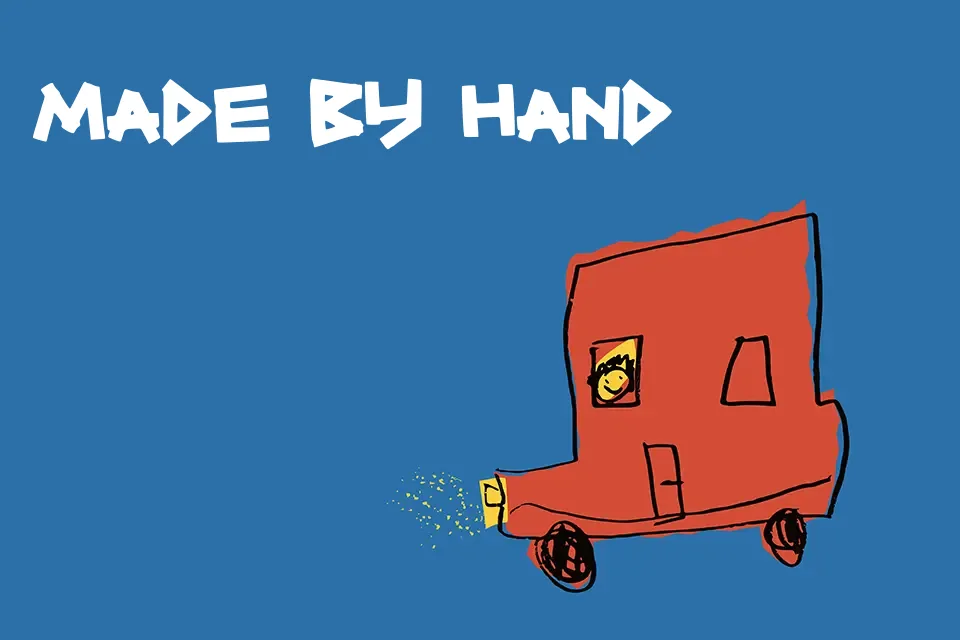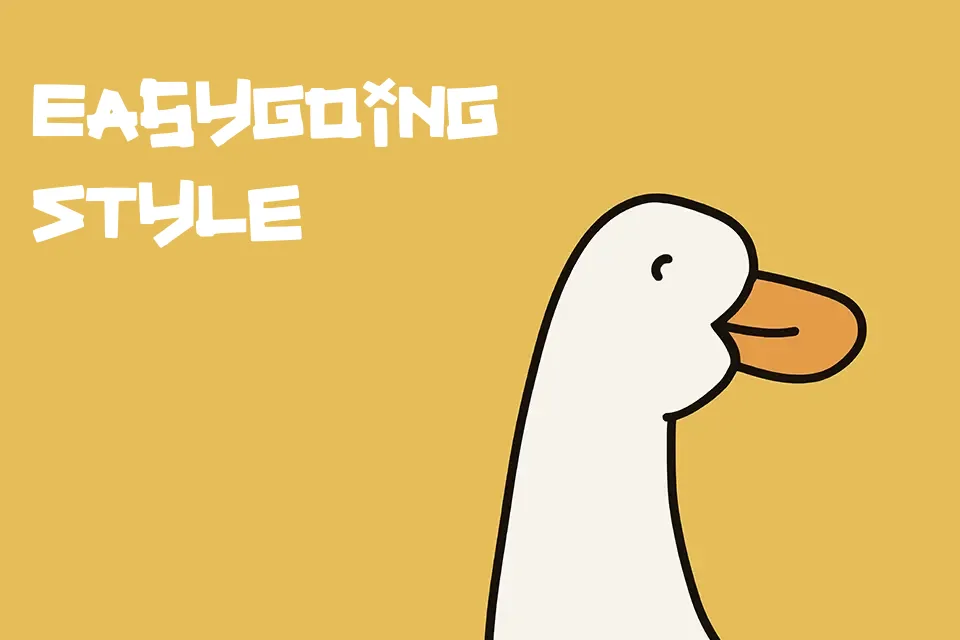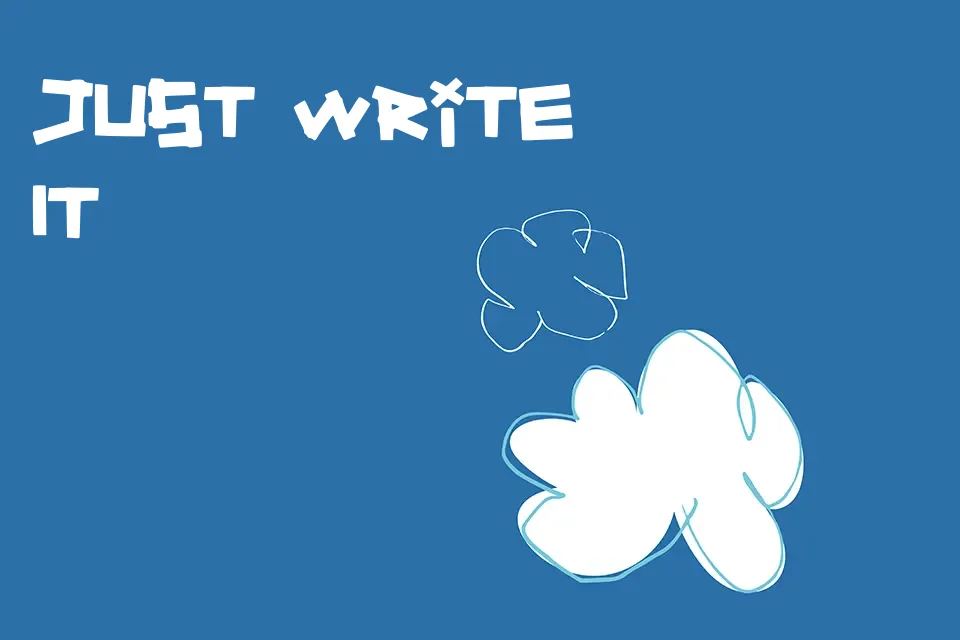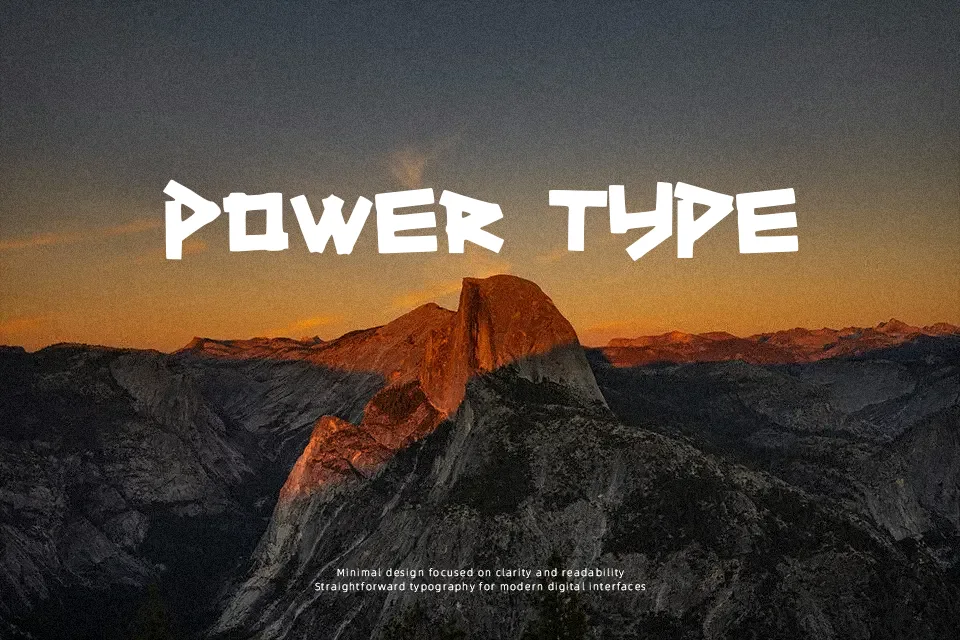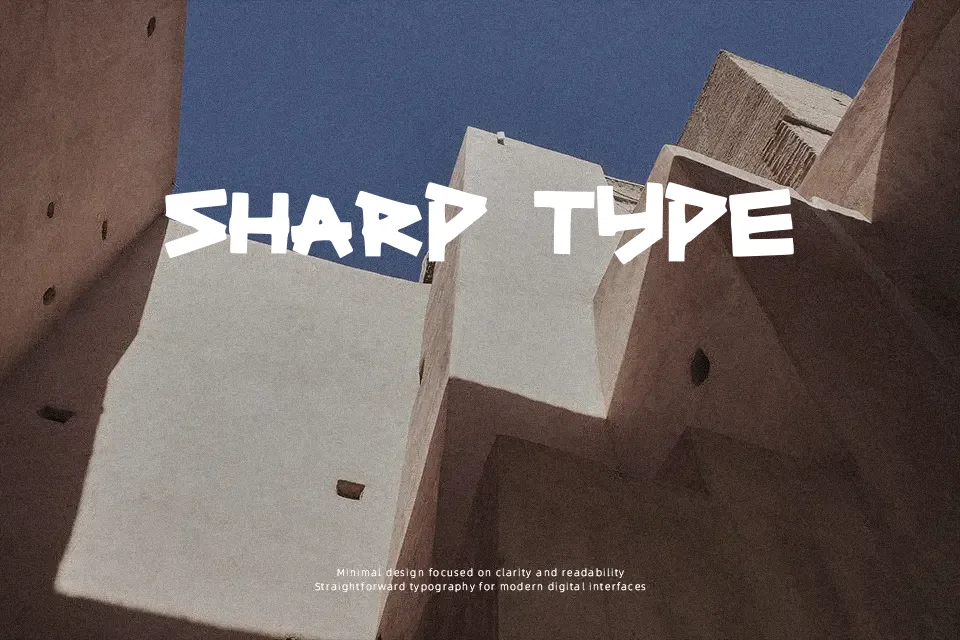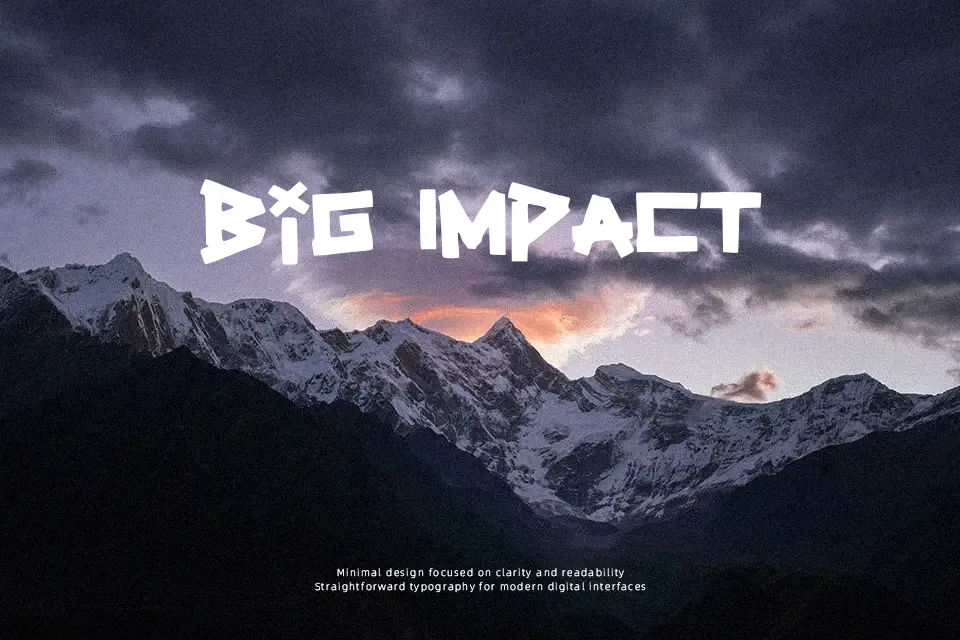
Titik Tapettf Font
Titik Tapettf Font features rugged, informal contours with solid weights and uneven stroke thicknesses that emphasize an authentic handmade aesthetic. Each glyph exhibits deliberate structural asymmetry, pairing blunt terminals with loose interior counters. Character spacing remains moderately wide to keep heavy silhouettes distinct, though optical rhythm fluctuates across variable letter widths. Because of these expressive idiosyncrasies, the letterforms remain easy to distinguish in short display text like event posters, graphic apparel, and food packaging. However, the heavy weight and raw contours severely diminish reading comfort across dense multi-line paragraphs. The design functions most effectively as a focal headline element where rustic charm outweighs technical geometric discipline.
Best For: comic book covers, streetwear apparel graphics, music festival posters, playful food packaging
Not Ideal For: dense editorial body text, corporate annual reports, small mobile interface labels, legal contracts